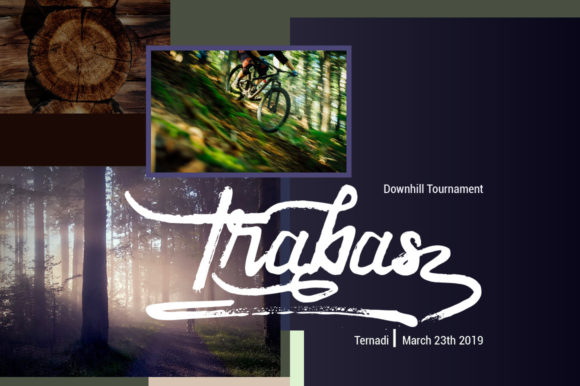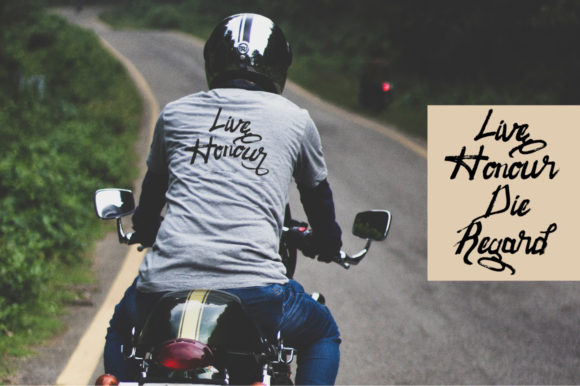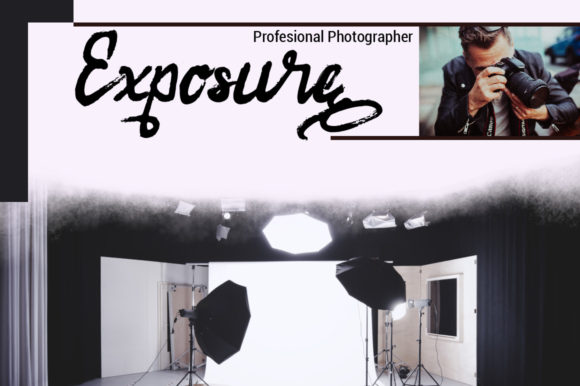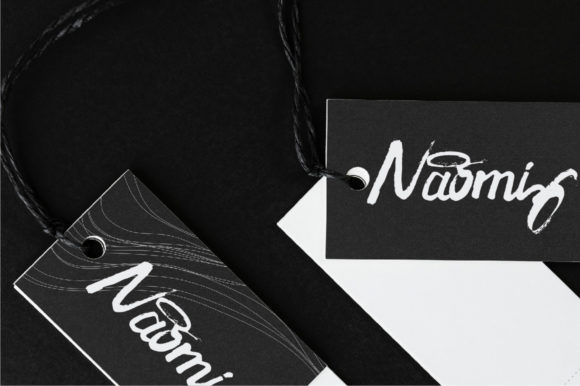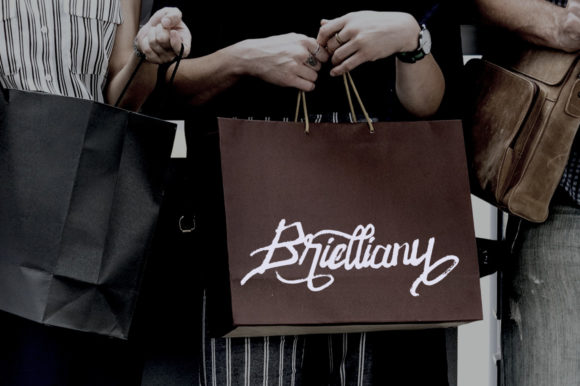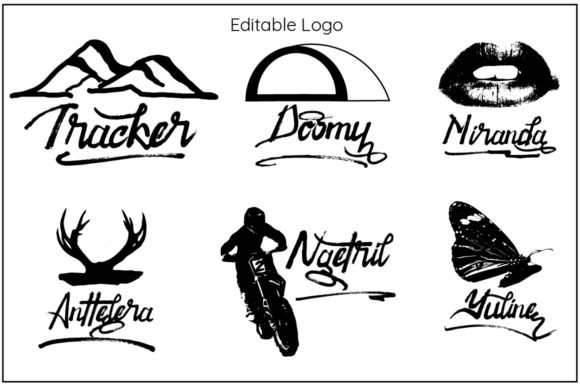
Introduction to Raintake Font
The Raintake is a rough texture script.
With Raintake, your design will look brave, great and powerful Included as a bonus are 6 editable logos.
Key Features of Raintake Font